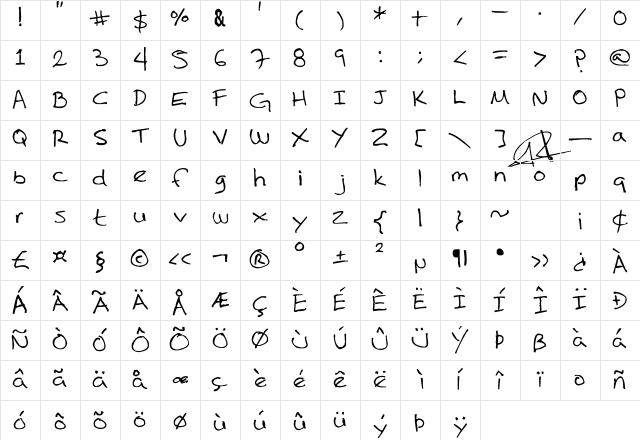
Adrian Regular
Adrian takes a measured approach to typography — its balanced proportions and neutral character make it a reliable workhorse for both digital and print work.
Pro Tip: Use Adrian in both headline and body roles to test its range before committing to a single application.